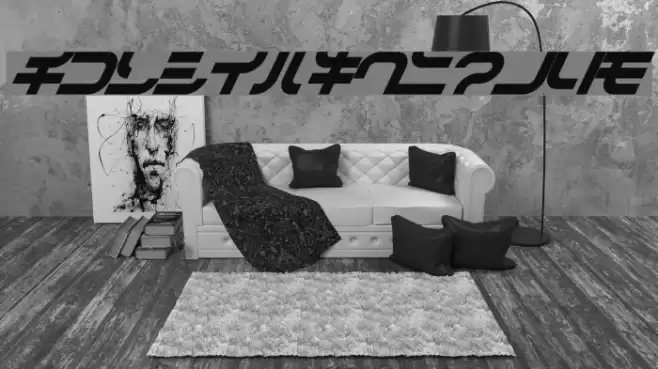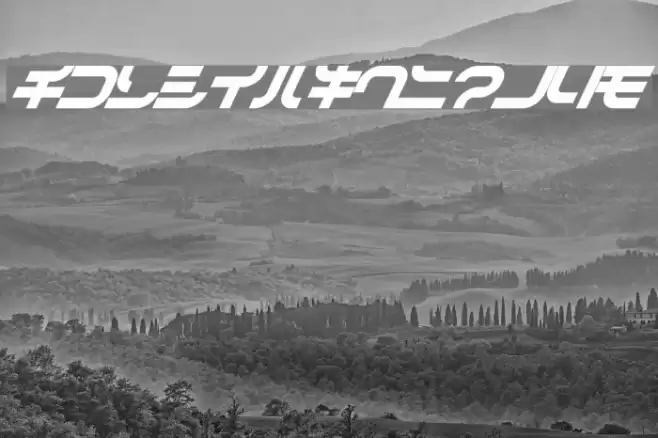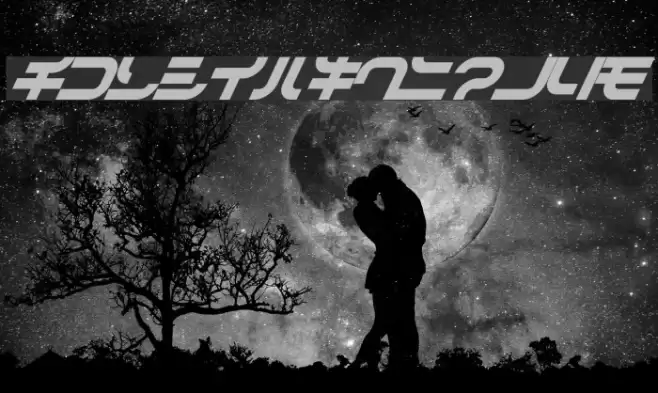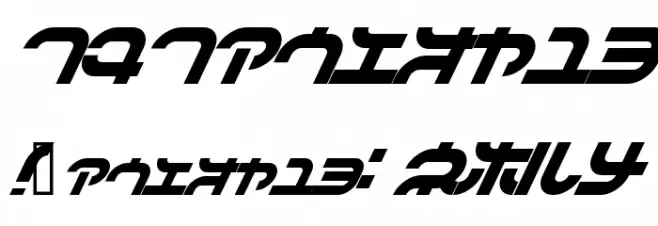
DanceMixR Font
DanceMixR Description
This font features a dynamic and energetic style, characterized by its bold, italicized letters with a distinct slant. The strokes are thick and consistent, giving it a strong presence. The characters are designed with sharp angles and a futuristic flair, making it stand out. The uppercase and lowercase letters maintain a uniform width, while the numbers and special characters follow the same stylistic approach. The overall design is sleek and modern, with a touch of edginess that captures attention.
A bold, italicized font with a futuristic and energetic style from Asian fonts.
- Proposed Projects: Ideal for projects that require a modern and dynamic look, such as sports branding, music album covers, or tech-related advertisements.